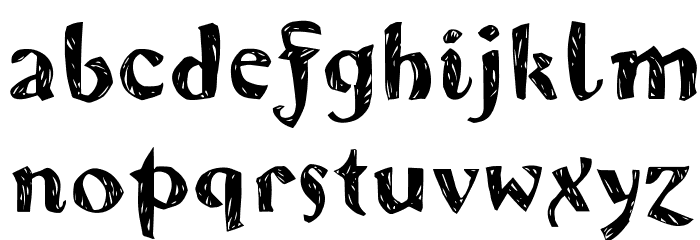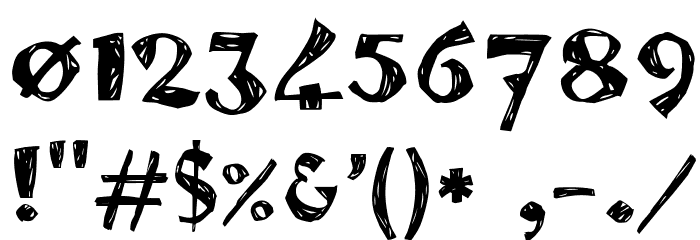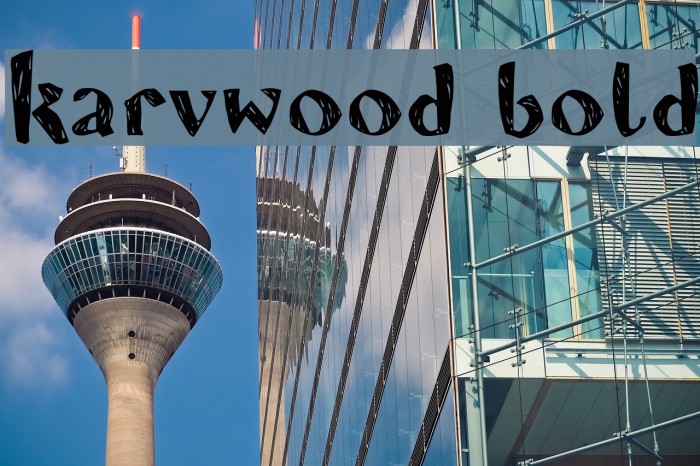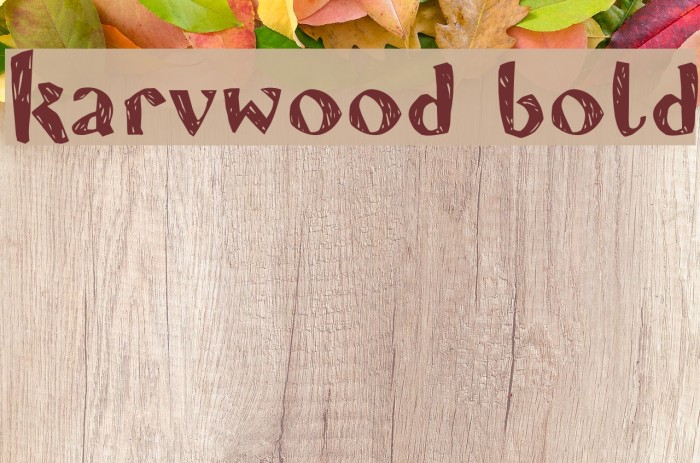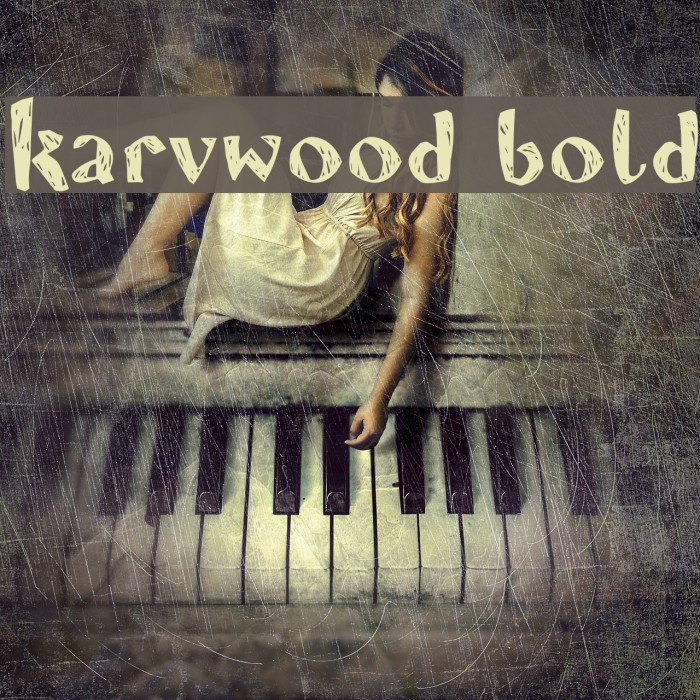
Karvwood bold Font
This font features a bold, hand-carved aesthetic with a distinctively rough texture, reminiscent of woodcut prints. The characters are uniquely stylized, with irregular edges and a playful, artistic flair. The uppercase and lowercase letters maintain a consistent style, while the numbers and special characters blend seamlessly into the overall design. The font's boldness and decorative nature make it stand out, offering a rustic and handcrafted feel that is both eye-catching and versatile.
A bold, hand-carved font with a rustic, woodcut texture.
- Proposed Projects: Ideal for projects requiring a handcrafted look, such as logos, posters, book covers, and artistic branding materials.
- Use Case: Logos, Posters, Book covers